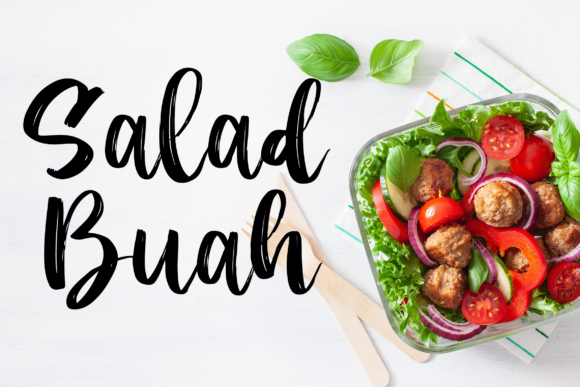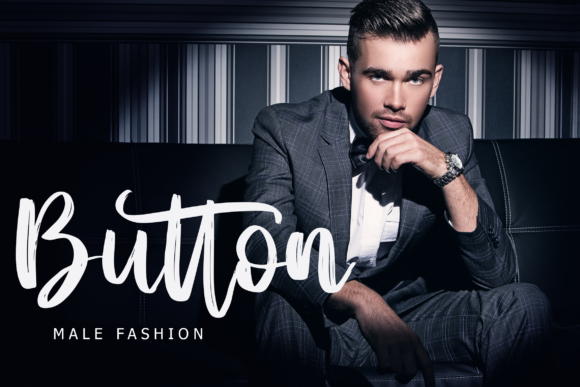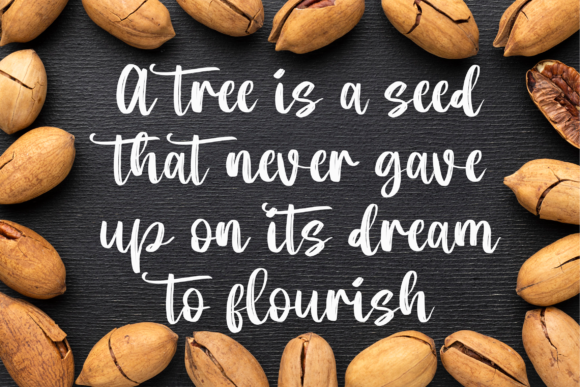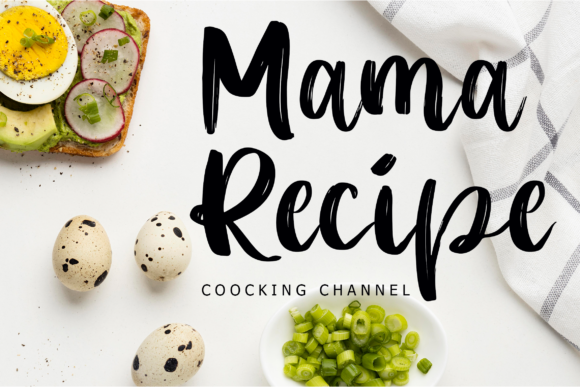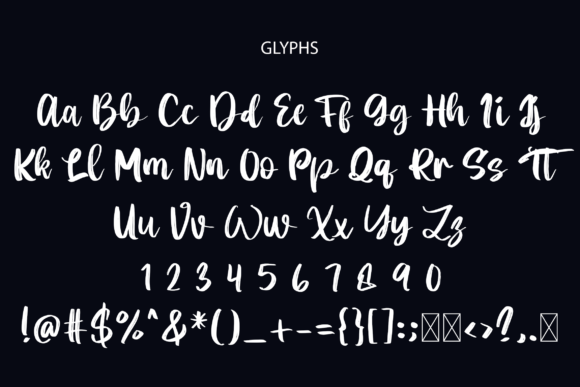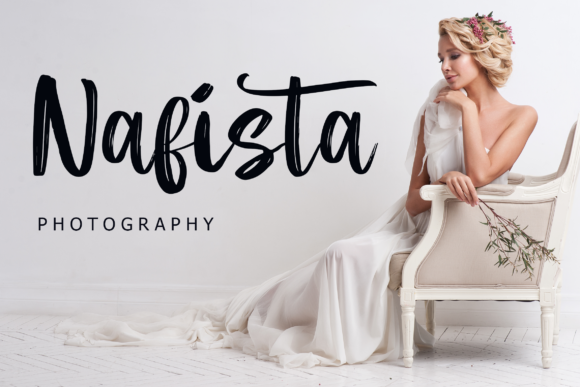
Introduction to Dartya Font
Have you ever been in the midst of a creative project, struggling to find the perfect font to bring your vision to life? The frustration of browsing through endless options, only to settle for something that’s just ‘good enough’? We’ve all been there. But what if you stumbled upon a font that not only met your expectations but exceeded them?
Enter the Dartya Font, a high-quality, free download that’s been making waves in the design community. With its unique, natural brush style, this font is the perfect addition to any creative project. Whether you’re a seasoned designer or just starting out, the Dartya Font is a valuable resource that’s sure to elevate your designs to the next level.
One of the standout features of the Dartya Font is its versatility. With a transparent background, you can use it on any design element, from logos to quotes, and it will always look stunning. So why settle for a generic font when you can have a high-quality, one-of-a-kind design resource like the Dartya Font?
Key Features of Dartya Font
- High-quality font with a transparent background, ideal for creative projects requiring a clean and modern look.
- Comes in 5 font styles, each with a unique design that can be used to add visual interest to your project.
Honest Review: Dartya Font
As a designer, I’m always on the lookout for high-quality design resources to elevate my creative projects. The Dartya Font caught my attention, and I decided to give it a try.
One of the things that works well about the Dartya Font is its versatility. It comes in a variety of weights, making it easy to use in different contexts. The font also has a transparent background, which is a great feature for designers who need to layer their elements.
- ✨ High-quality design with a professional finish
- ✨ Versatile with multiple weights to choose from
- ✨ Transparent background for easy layering
However, there are a few limitations to the Dartya Font. The font can be quite bold, which may not be suitable for all projects. Additionally, the font may not be ideal for small text sizes, as the boldness can make it difficult to read.
- ⚠️ May be too bold for certain projects
- ⚠️ Not ideal for small text sizes
Overall, I’m impressed with the Dartya Font, and I think it’s a great addition to any designer’s toolkit. While it may have some limitations, its high quality and versatility make it a valuable resource for any creative project.
Tips for Getting the Most Out of Dartya Font
To get the most out of Dartya Font, use it in conjunction with a high-quality design resource, such as a transparent background image. This will allow you to create a visually appealing and professional-looking design.
The Dartya Font is ideal for use in creative projects, such as logos, business cards, and social media graphics. Its high-quality design and transparent background make it perfect for use in a variety of design applications.